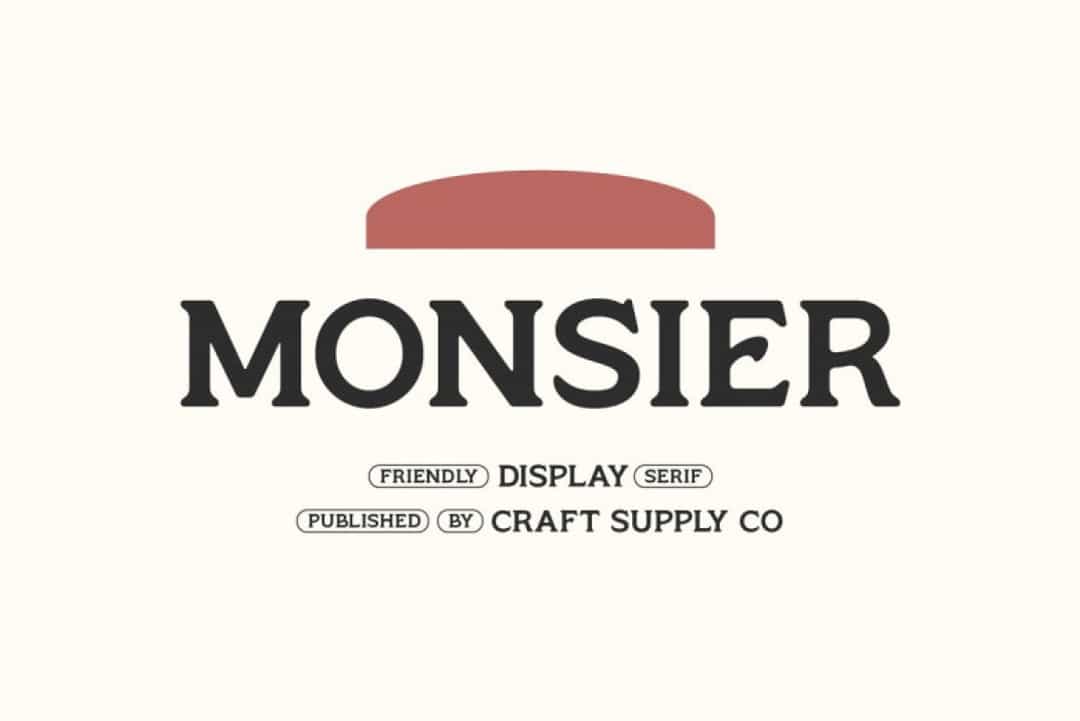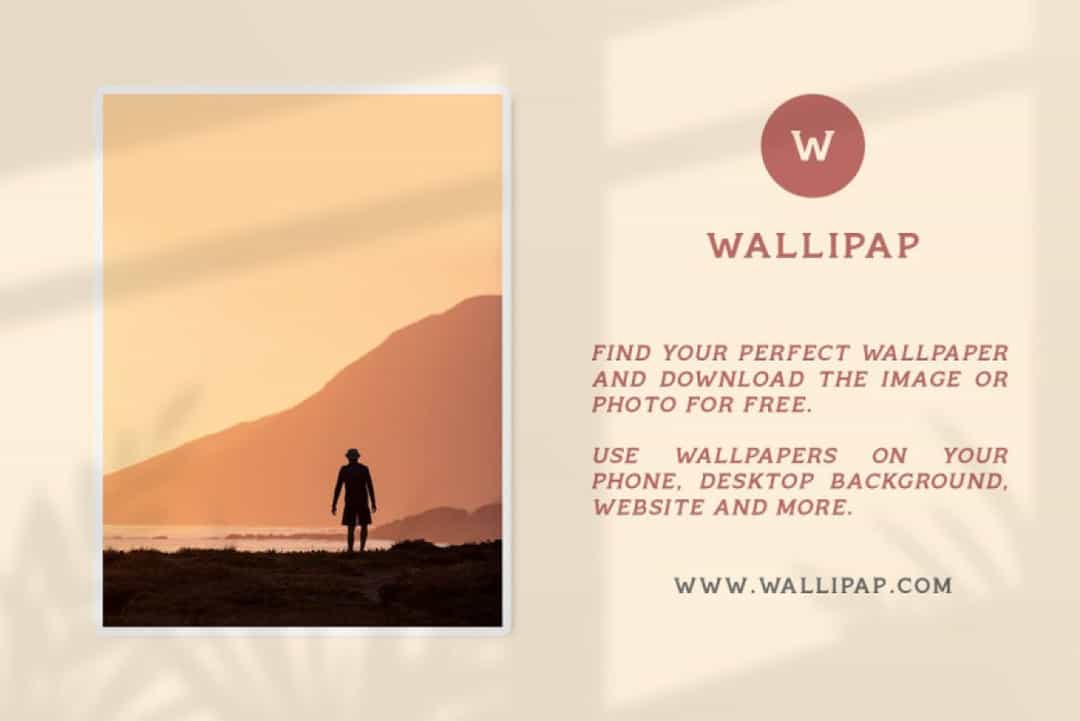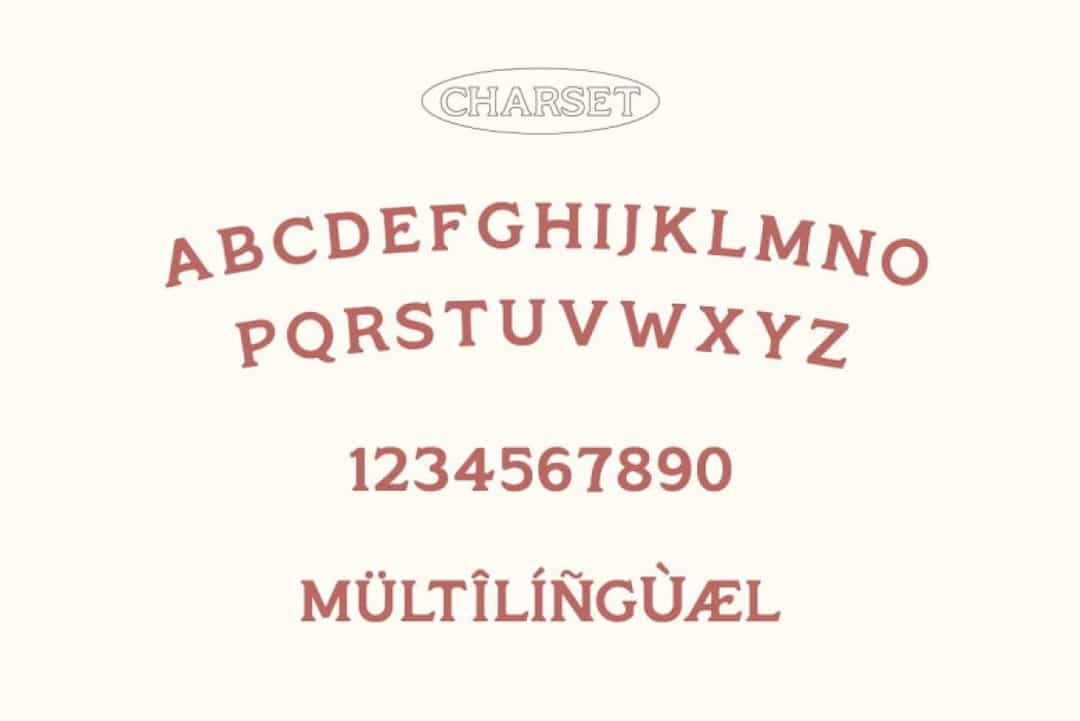
Monsier Friendly Display Serif is an extensive serif font family that draws upon modern serif influences to evoke its design. Monsier the Friendly Display Serif stands out with minimal contrast between strokes, slightly square-shaped forms of round characters and its emphasis on business-like simplicity.